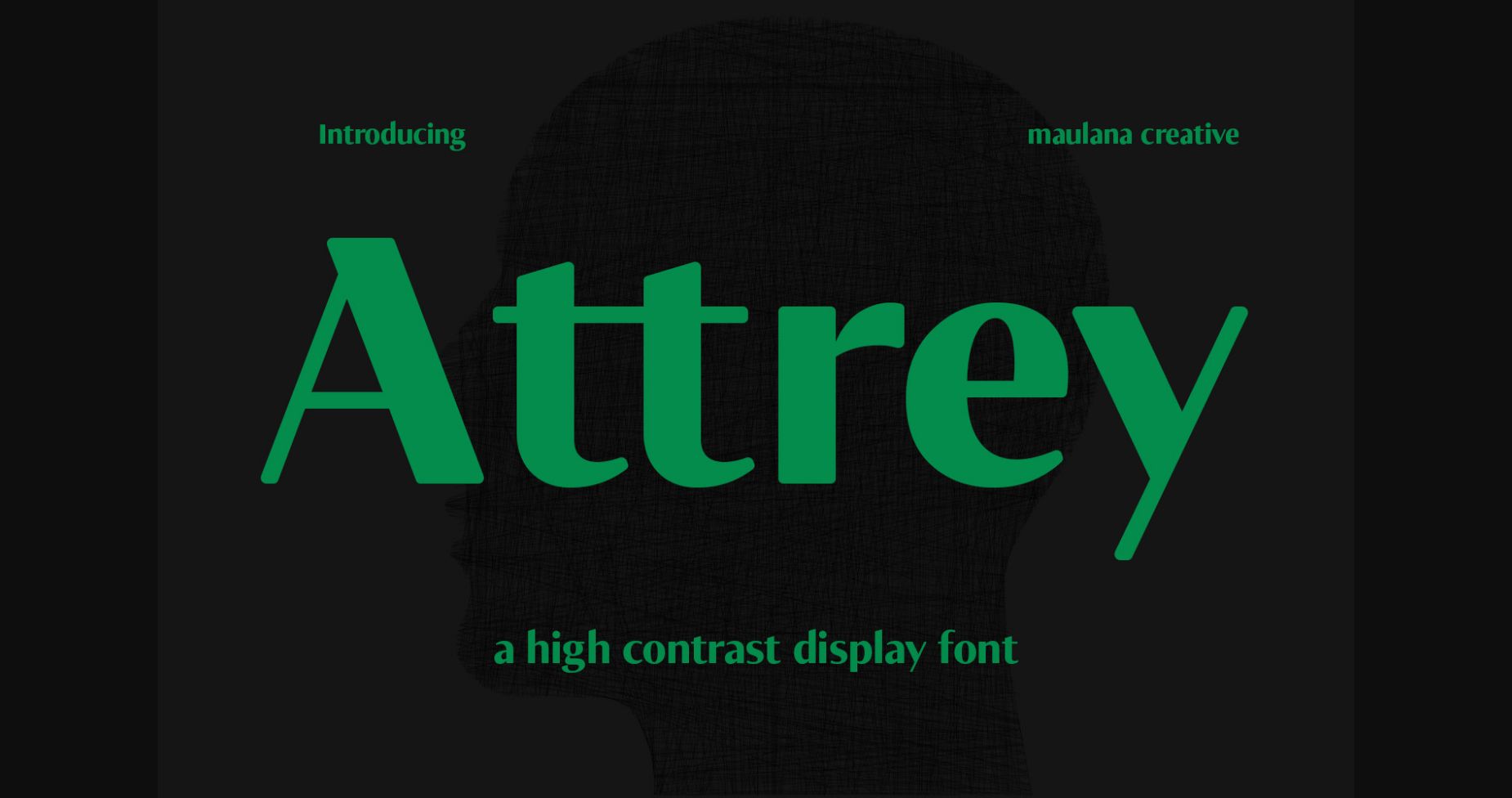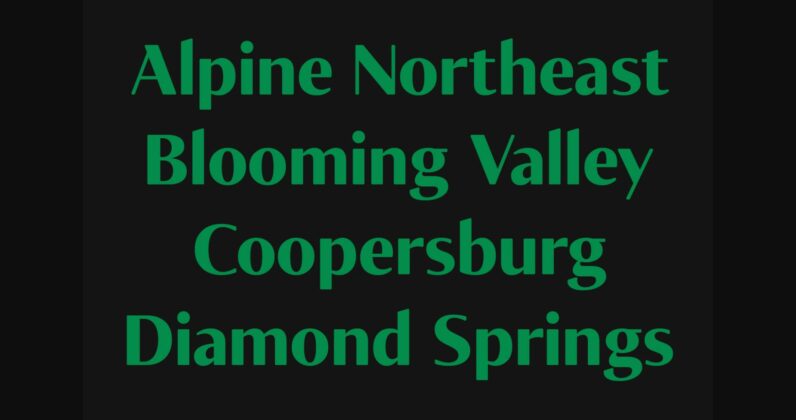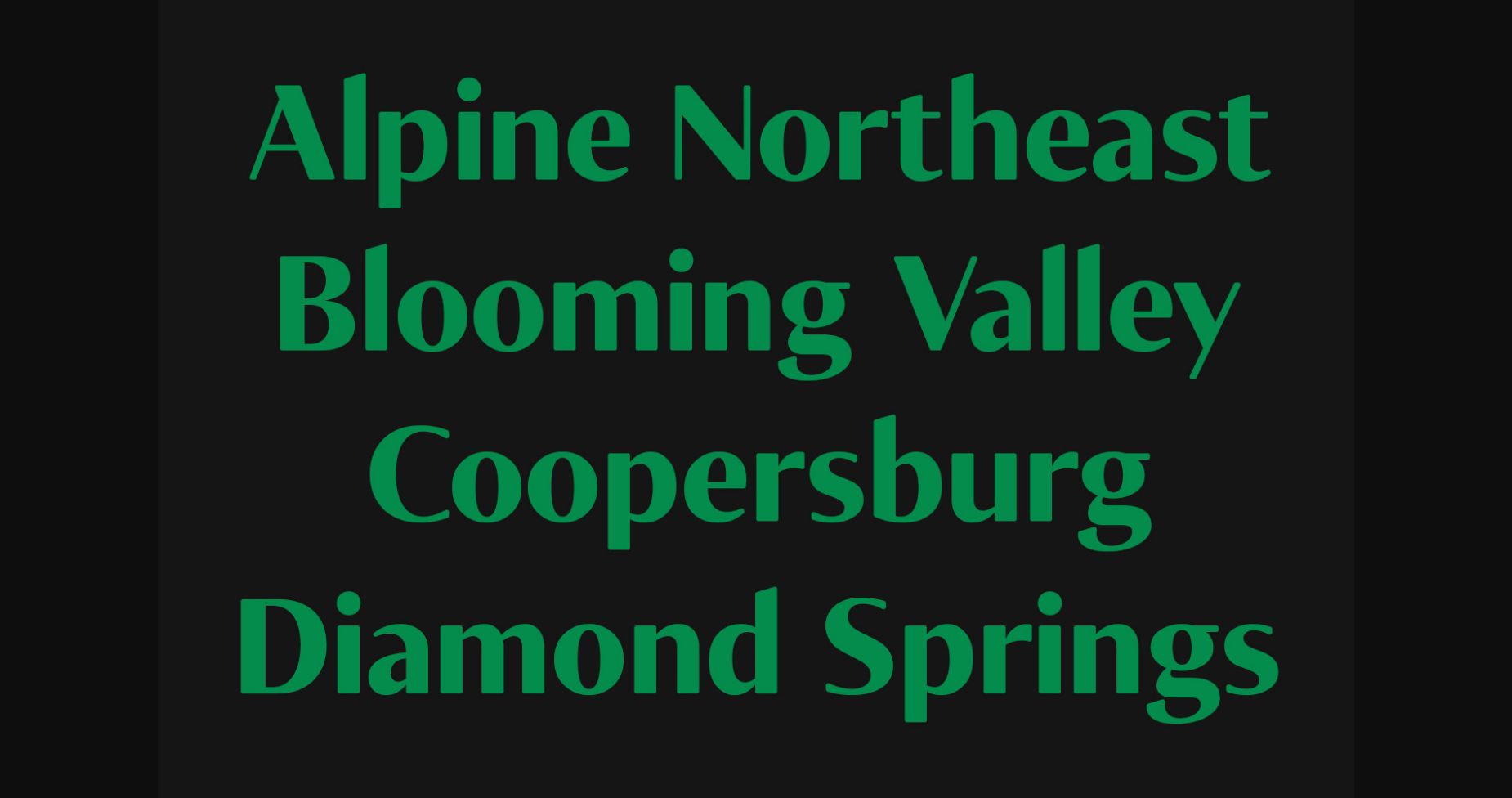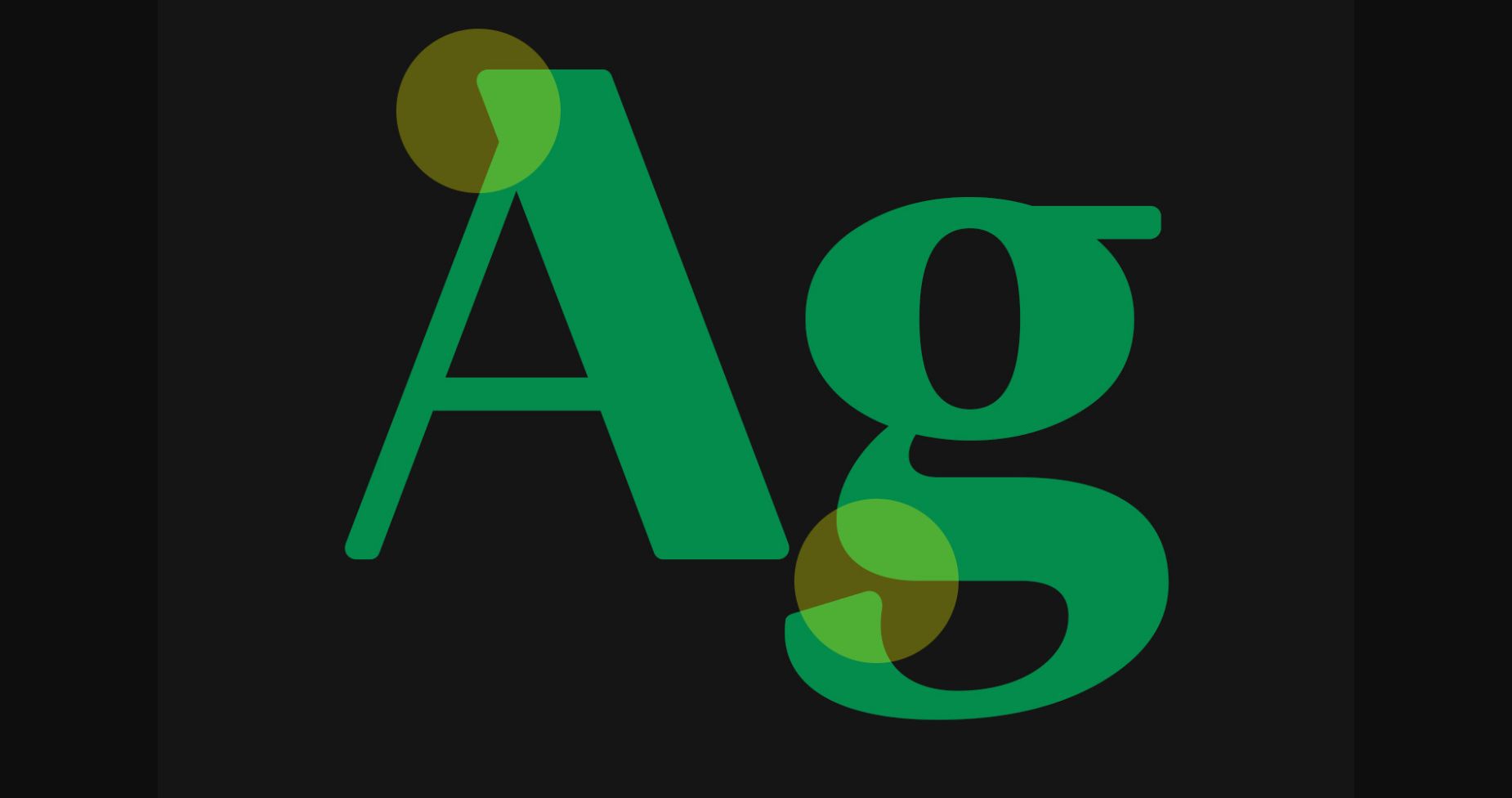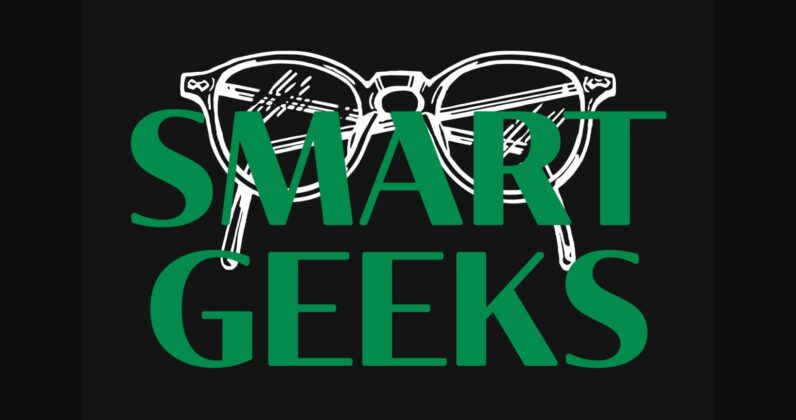
About Attrey Font
Attrey is a high-contrast sans display font. Bold contrast stroke, a fun character with a bit of ligature and alternates. This font is good for logo design, Social media, Movie Titles, Books Titles, a short text even a long text letter and good for your secondary text font with script or serif. Make a stunning work with Attrey font.